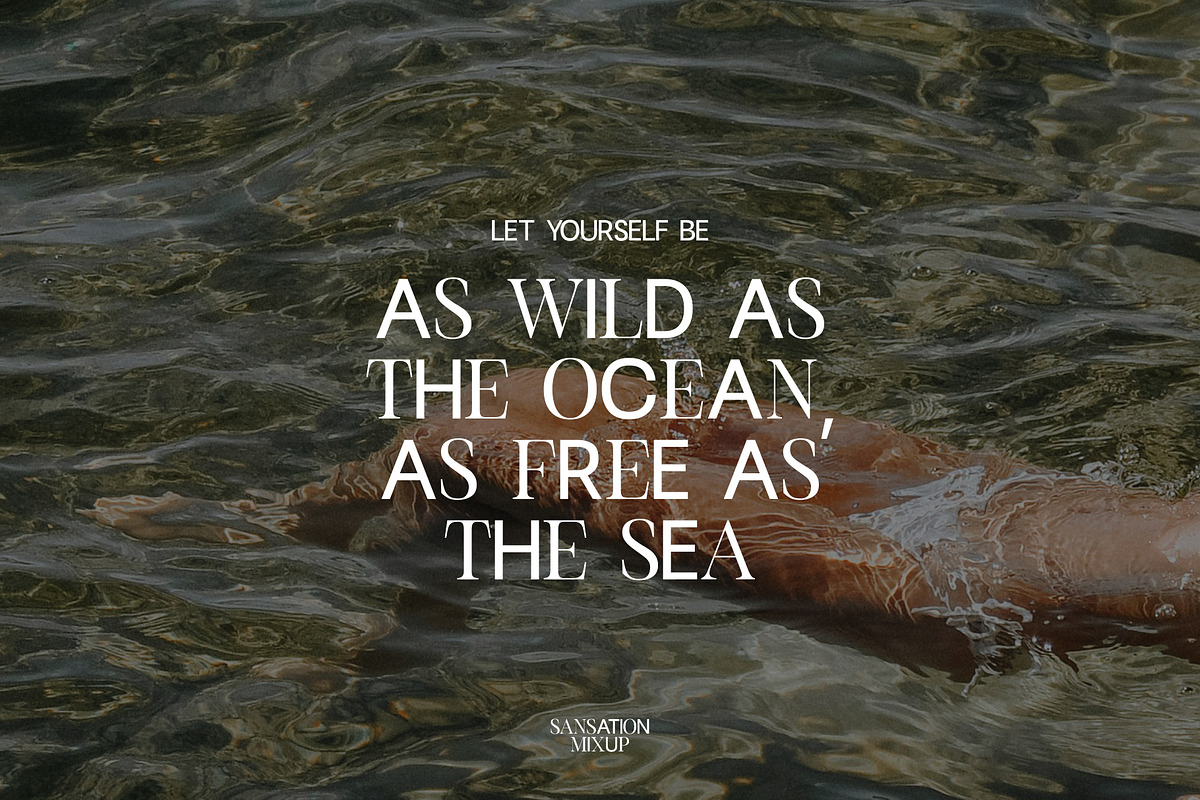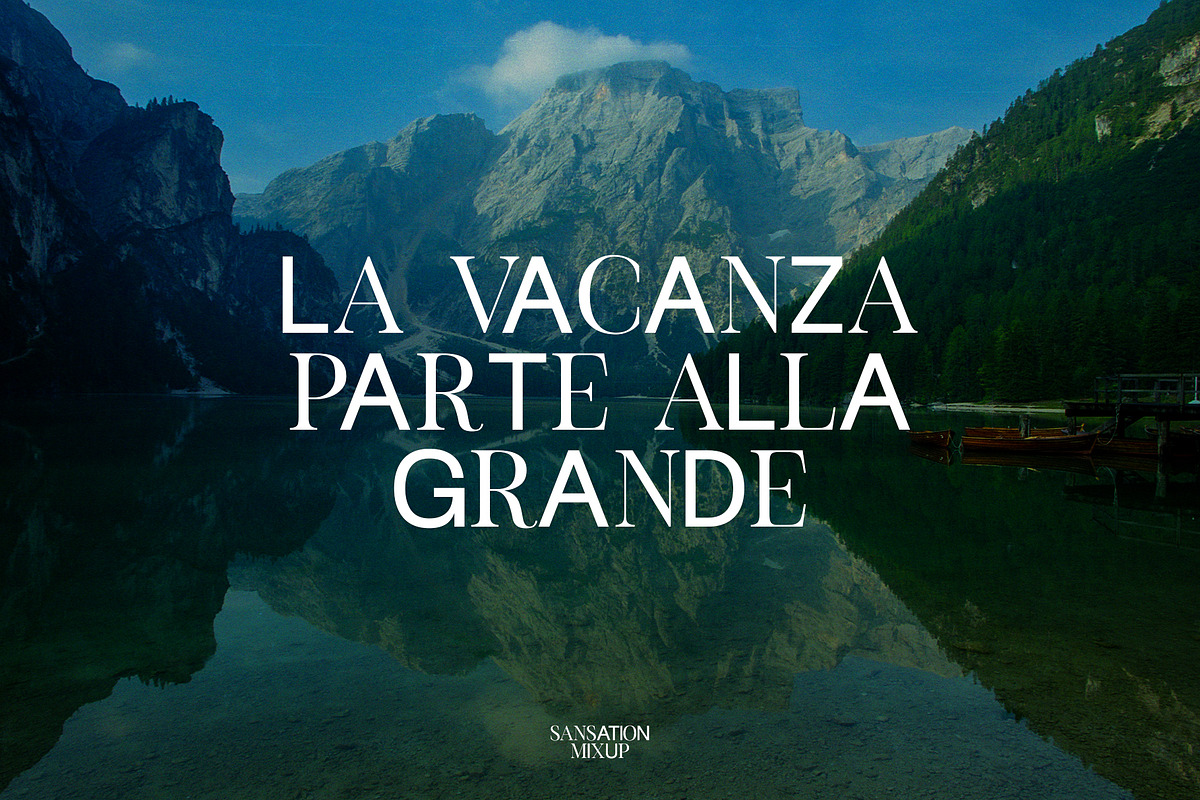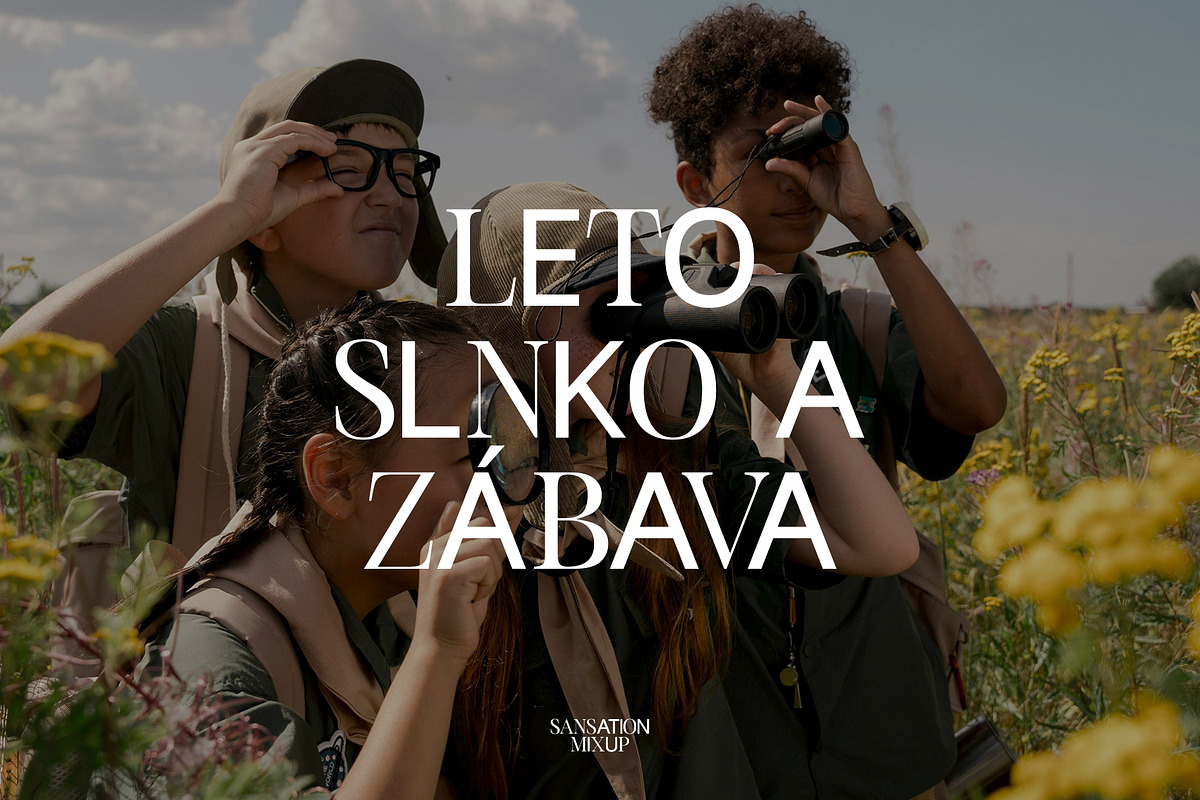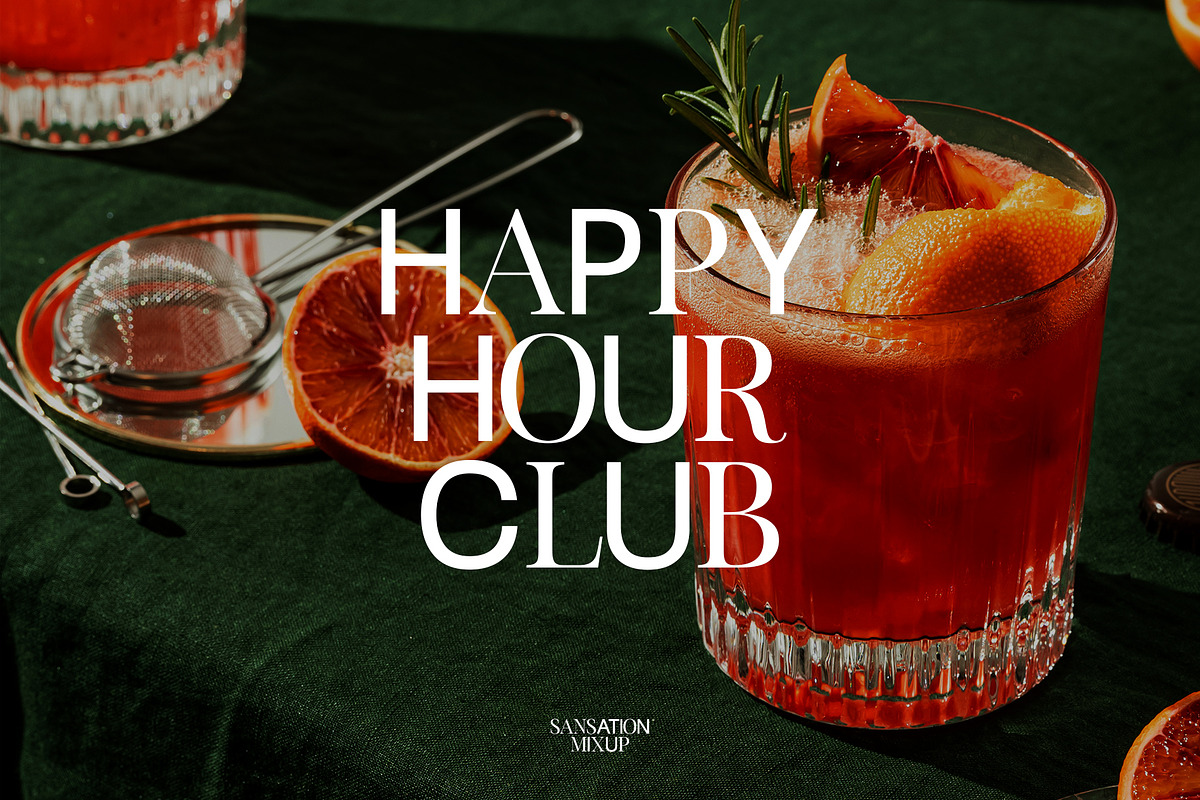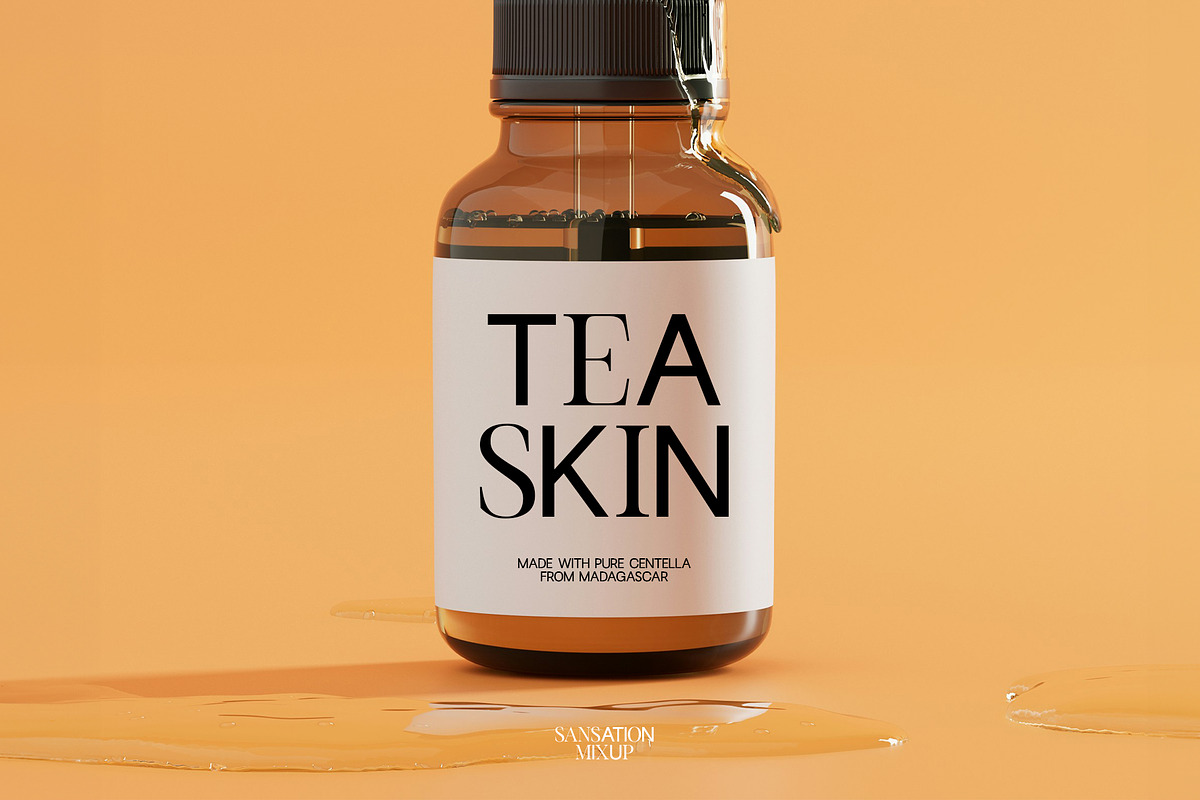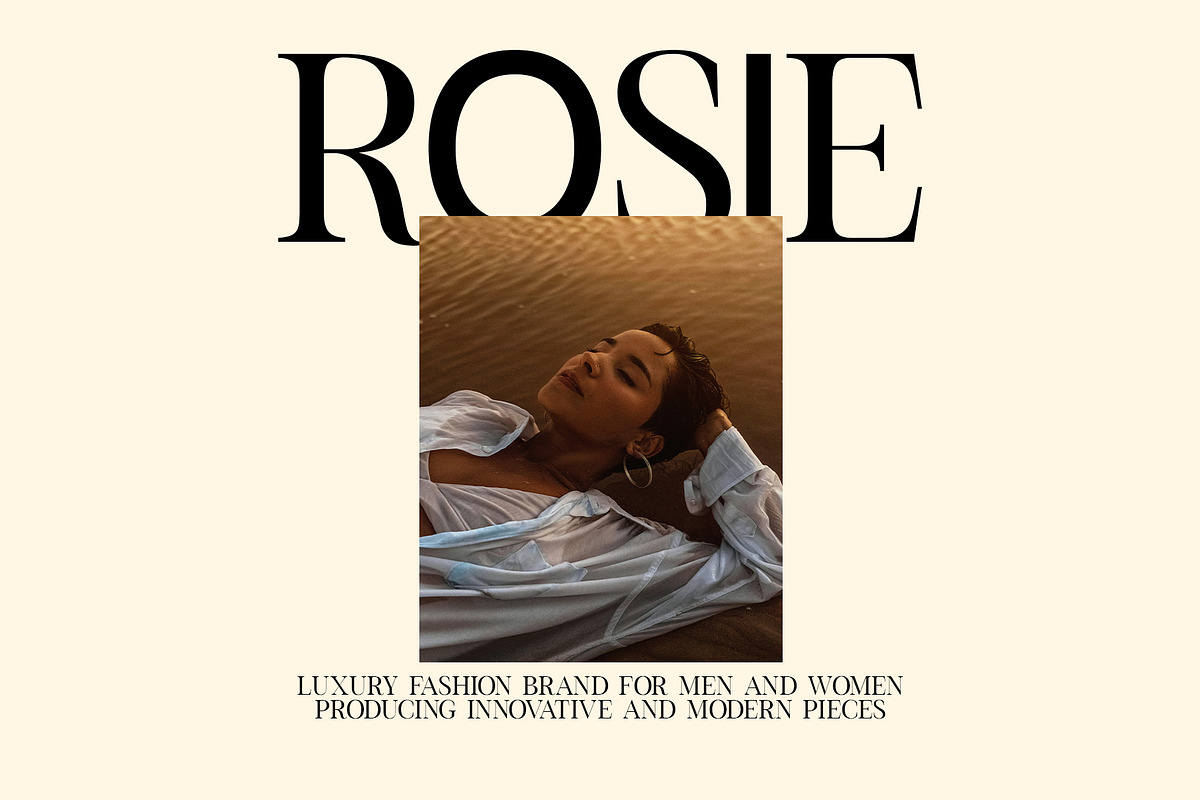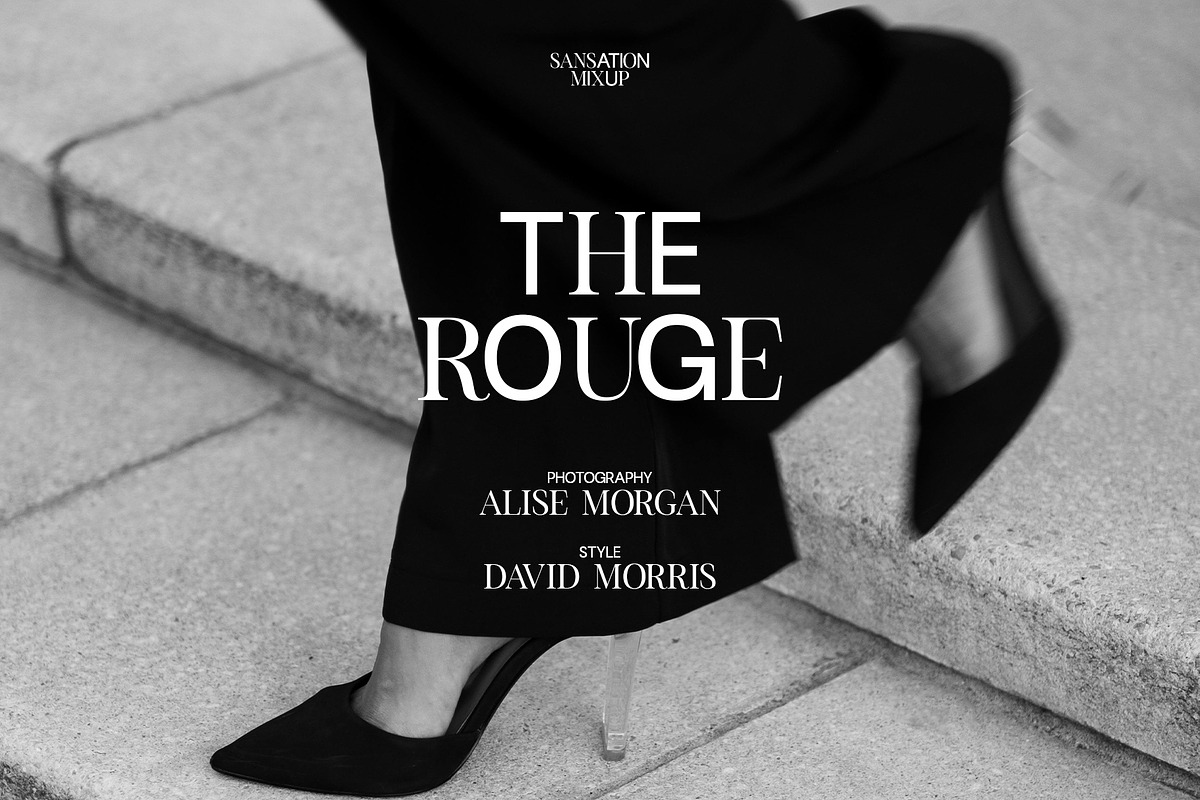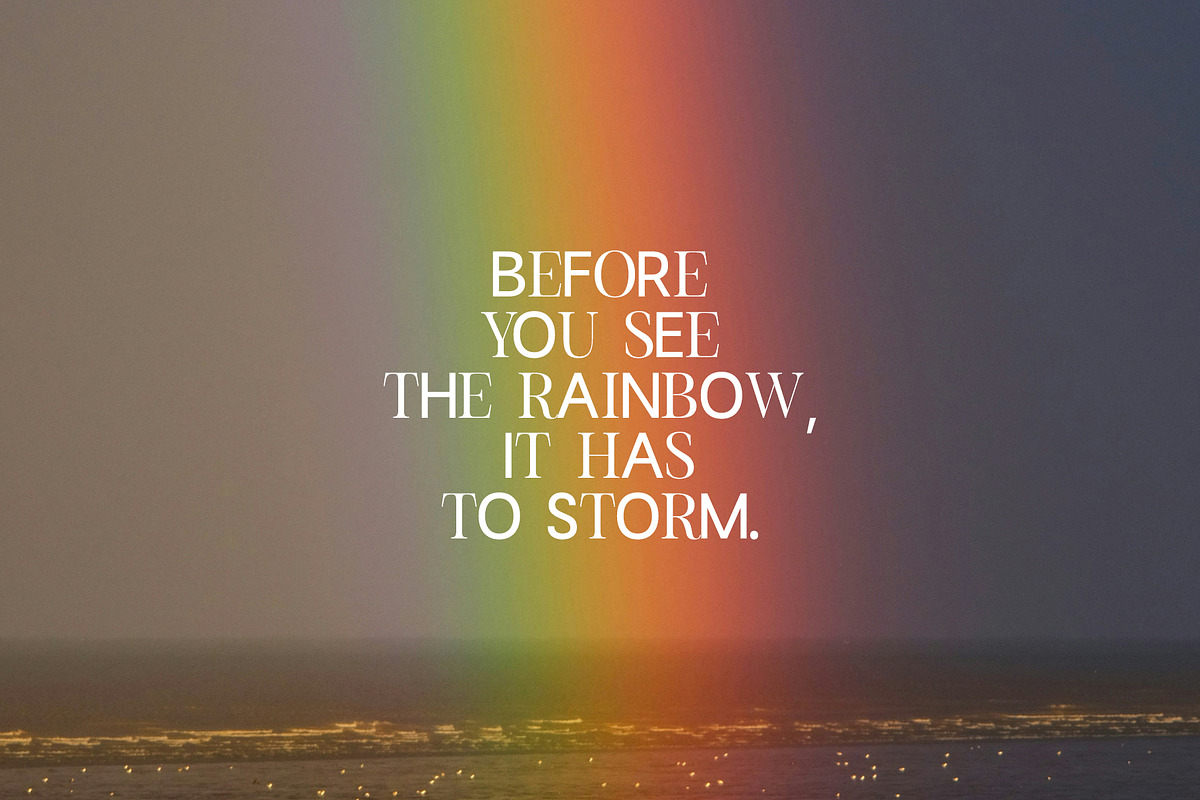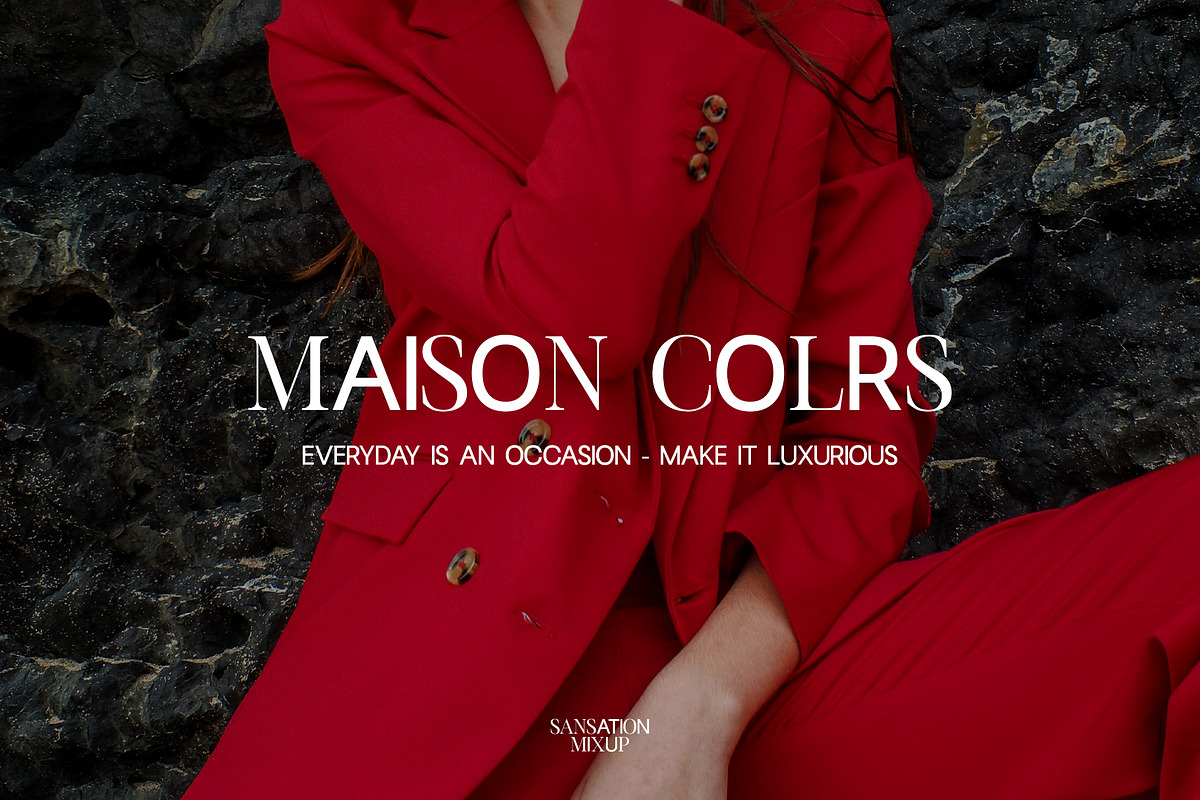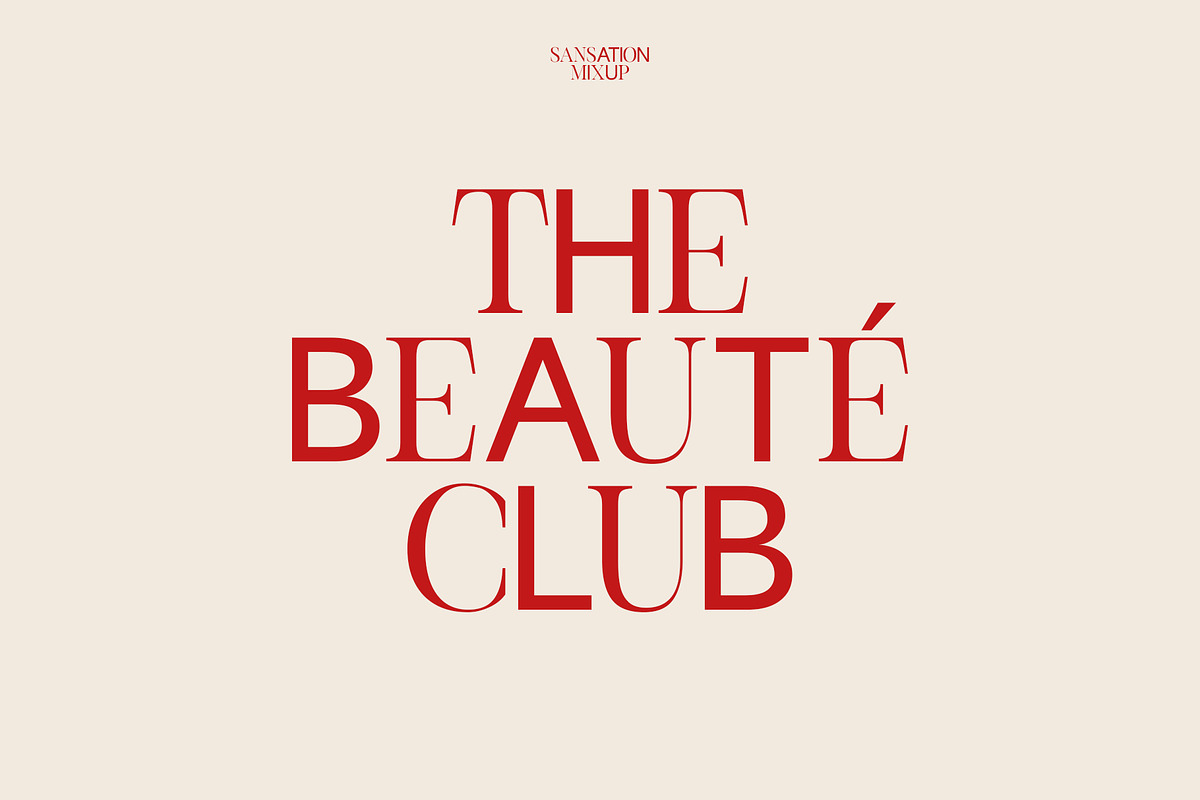
Sensation Mixup Experimental font
Sensation Mixup Experimental font!
Multilingual Characters: AÁĂÂÄÀĀĄÅÃÆBCĆČÇĊDÐĎĐEÉĚÊËĖÈĒĘẼFGĞĢĠḠHĦIIJÍÎÏİÌĪĮĨJKĶLĹĽĻŁMNŃŇŅÑ OÓÔÖÒŐŌØÕŒPÞQRŔŘŖSŚŠŞȘẞTŤŢȚUÚÛÜÙŰŪŲŮŨVWẂŴẄẀXYÝŶŸỲỸZŹŽŻ